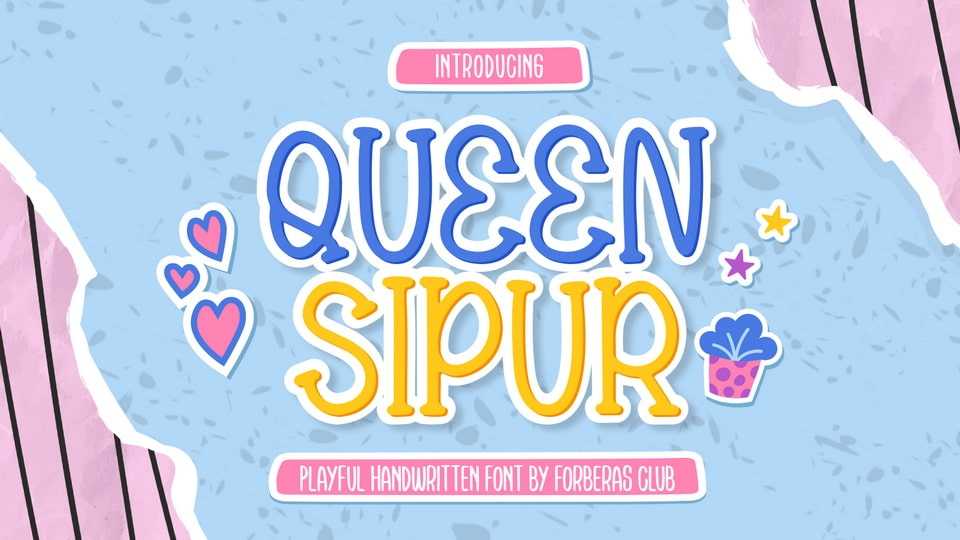
Download Queen Sipur font, a playful and friendly handwritten typeface. Suitable to a wide variety of designs due to its neat and simple style, this font has the potential to become your favorite go-to font, no matter the occasion